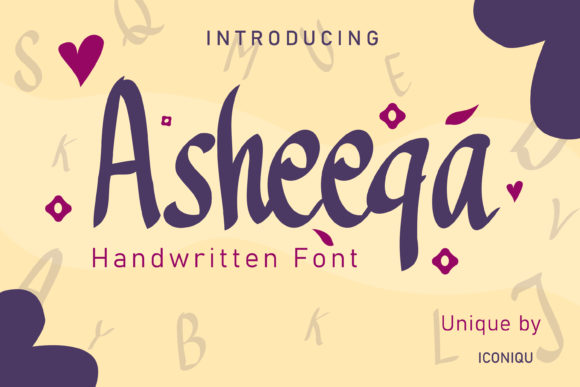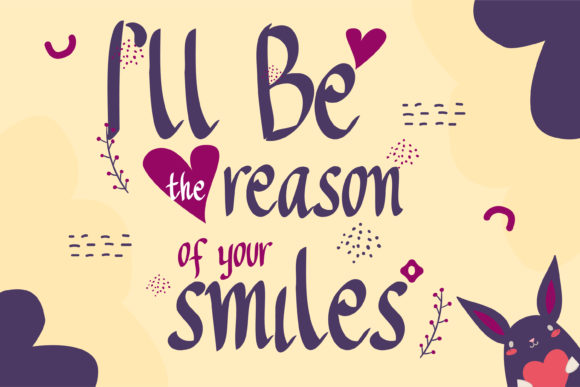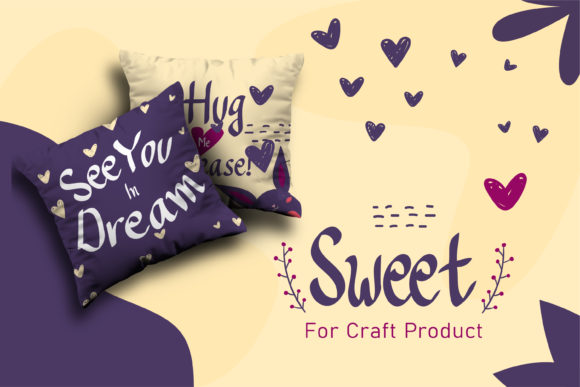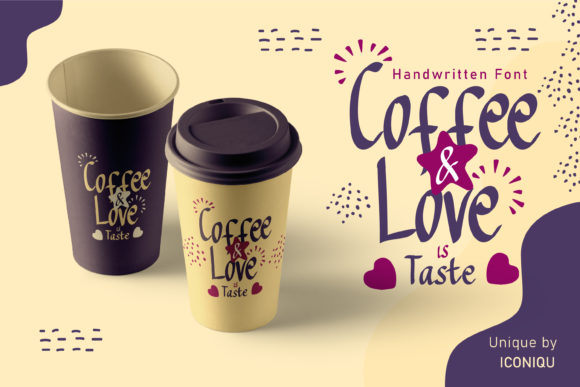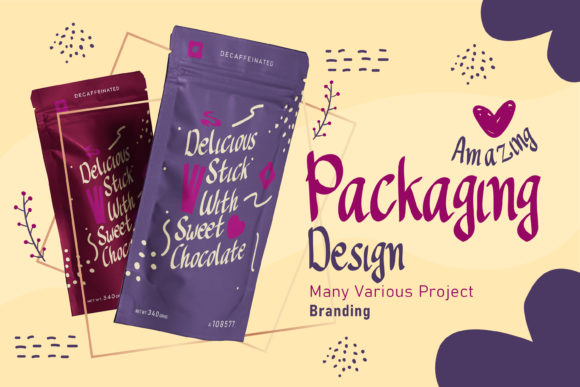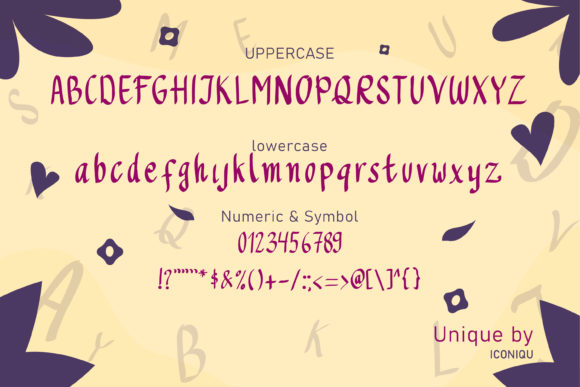
Asheeqa Font
About Asheeqa Font
Asheeqa is a beautiful and natural handwritten font that exudes elegance and charm. With its balanced and refined letterforms, this font is well-suited for a wide range of projects, including wedding invitations, thank you cards, quotes, greeting cards, logos, and business cards.
When it comes to wedding invitations, Asheeqa adds a touch of sophistication and romance. Its delicate and flowing strokes create an enchanting atmosphere, capturing the essence of love and celebration. The clean and neat appearance of the font lends a modern and polished look to the invitations, making them visually appealing and memorable.
Thank you cards and greeting cards also benefit from the beauty of Asheeqa. Its natural and organic style adds a personal and heartfelt touch to your messages, conveying warmth and gratitude. Whether expressing appreciation or sending well wishes, Asheeqa enhances the sentiment and creates a lasting impression.
Quotes, whether shared on social media or used in designs, take on a whole new level of beauty with Asheeqa. The graceful and elegant letterforms of the font bring a sense of sophistication and artistry to your quotes, making them visually captivating and inspiring. The customized touch of Asheeqa ensures that your quotes stand out and leave a lasting impact on the reader.
Logos designed with Asheeqa have a unique and memorable appeal. The handcrafted nature of the font adds a sense of authenticity and individuality to your brand. Whether for creative businesses, lifestyle brands, or personal ventures, Asheeqa enhances the visual identity of your logo, making it distinctive and captivating.
Business cards are another area where Asheeqa shines. Its beautiful and natural style creates a professional and stylish impression. Whether used for networking events, meetings, or client interactions, Asheeqa adds a touch of elegance and sophistication to your business cards, leaving a positive and lasting impression on recipients.
In summary, Asheeqa is a beautiful and natural handwritten font that brings elegance and charm to any design. Its neat and refined appearance makes it suitable for wedding invitations, thank you cards, quotes, greeting cards, logos, and business cards. Embrace the beauty of Asheeqa and let it elevate your designs with its unique and customized touch.